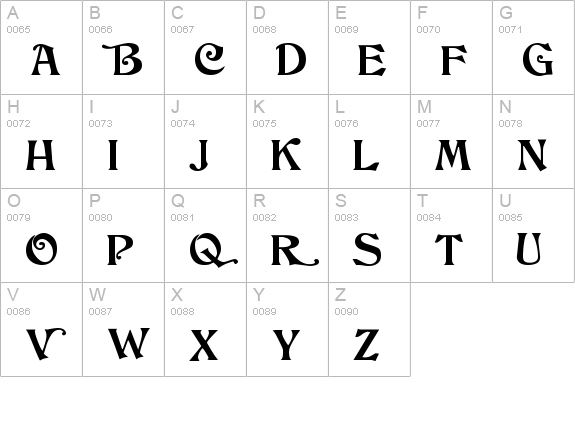
Wedgewood Font Details
Wedgewood font is a sophisticated and elegant typeface that exudes timeless charm. With its delicate serifs and refined lines, Wedgewood is perfect for adding a touch of class to any project. This versatile font is ideal for invitations, branding, logos, and more. The best part? Wedgewood font is available for free download at FontsMarket.com. Now you can enjoy the beauty and elegance of this exquisite font without breaking the bank. Don't miss out on the opportunity to elevate your designs with the stunning Wedgewood font. Download it today and add a touch of luxury to your creations.